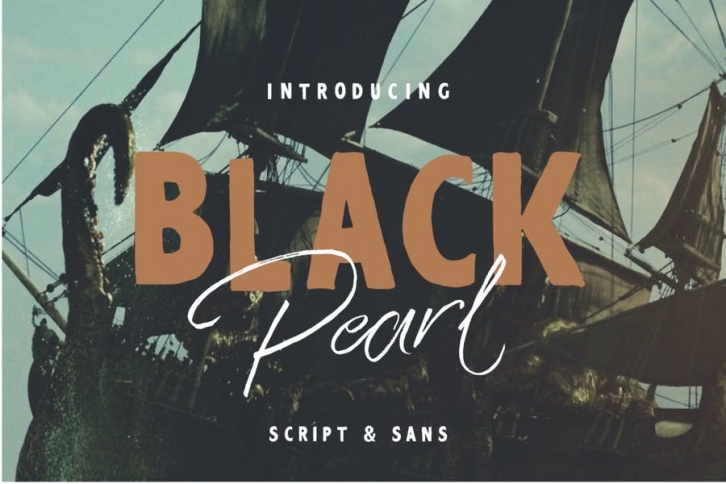
Black Pearl Font Duo + Extras Download
Introducing Black Pearl handwriting brush with some combination with sans. Ready used with awesome character!
Black Pearl Script : A Rough Dry Brush Script , with a casual character, but fancy attitude. Complete with alternate and more Ligature Black Pearl Sans : A Rough Sans. Bonus Befolk Handrawn Script Font https://goo.gl/MA0J67 Features: